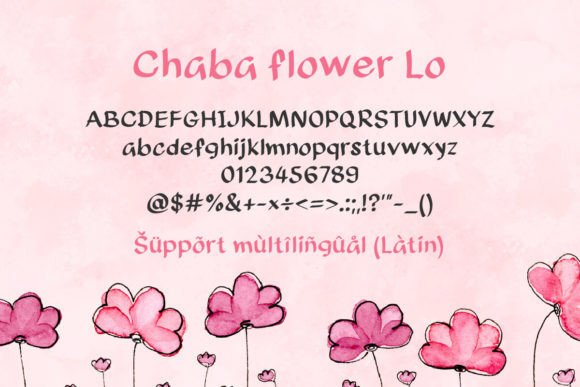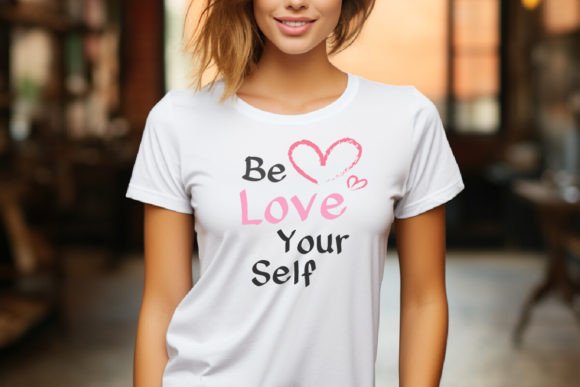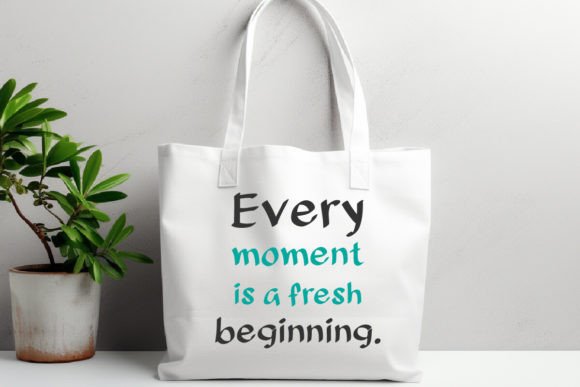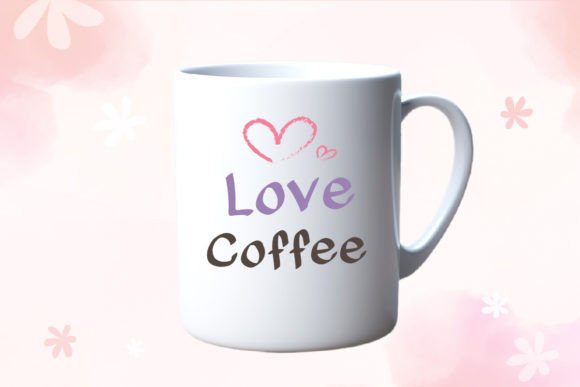
Introducing Chaba Flower Lo Font: The Ultimate Modern Sans Serif for Designers and Crafters
In the world of typography, fonts play a crucial role in conveying messages, expressing emotions, and creating visual identities. For designers and crafters, finding the perfect font can be a daunting task, especially when it comes to creating stunning visuals that capture attention. This is where Chaba Flower Lo Font comes into play – a thick-lettered, minimal, and modern sans serif font that’s perfect for a wide range of applications.
What is Chaba Flower Lo Font?
Chaba Flower Lo Font is a carefully crafted, modern sans serif font that’s designed to make a statement. Its thick, bold letters exude confidence and sophistication, making it an ideal choice for designers and crafters looking to create eye-catching visuals. The font’s minimalistic approach ensures that the message takes center stage, while its modern aesthetic adds a touch of elegance and refinement.
Key Features of Chaba Flower Lo Font
- Thick-Lettered: Chaba Flower Lo Font features thick, bold letters that demand attention and make a lasting impression.
- Minimal and Modern: The font’s minimalistic approach and modern aesthetic ensure that it looks sleek and sophisticated.
- Sans Serif: The font’s sans serif design makes it perfect for digital and print applications.
- Versatile: Chaba Flower Lo Font is suitable for a wide range of applications, from headlines and logos to greeting cards and clothing.
Use Cases for Chaba Flower Lo Font
Chaba Flower Lo Font is an incredibly versatile font that can be used in various applications, including:
- Headlines: Create attention-grabbing headlines for articles, blog posts, and advertisements.
- Logos: Design stunning logos for businesses, products, and services.
- Greeting Cards: Add a personal touch to greeting cards, invitations, and thank-you cards.
- Clothing and Accessories: Create eye-catching designs for T-shirts, bags, and other clothing items.
- Posters and Flyers: Design striking posters and flyers for events, promotions, and campaigns.
- Blogs and Websites: Use Chaba Flower Lo Font to create visually appealing blog posts, headings, and titles.
Why Choose Chaba Flower Lo Font?
With so many fonts available, why choose Chaba Flower Lo Font? Here are a few reasons:
- Unique and Modern: Chaba Flower Lo Font offers a fresh and modern take on traditional sans serif fonts.
- Highly Versatile: The font’s versatility makes it suitable for a wide range of applications and projects.
- Easy to Read: The font’s clear and bold design ensures that it’s easy to read, even at smaller sizes.
- Time-Saving: With Chaba Flower Lo Font, designers and crafters can save time and effort, as the font is ready to use and requires minimal editing.
Chaba Flower Lo Font is a game-changer for designers and crafters looking for a modern, versatile, and attention-grabbing font. Its thick-lettered, minimal, and modern design makes it perfect for a wide range of applications, from headlines and logos to greeting cards and clothing. Whether you’re a professional designer or a DIY crafter, Chaba Flower Lo Font is an excellent addition to your font library.